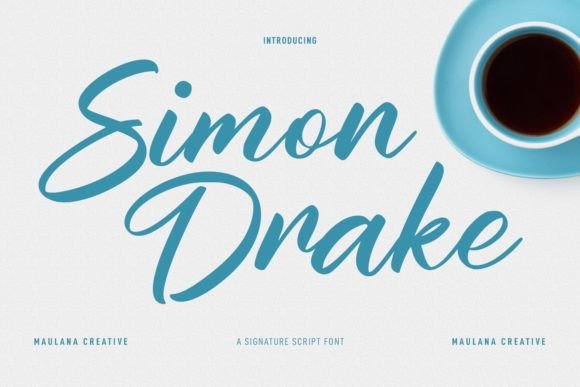
**Introducing Simon Drake: The Ultimate Font for Sports Posters**
Get ready to ignite your creativity with Simon Drake, the most dynamic and captivating script font that will elevate your sports posters to new heights!
Simon Drake is not just a font; it's an adrenaline rush for your designs. Its bold, energetic strokes evoke the passion and excitement of the game, making it the perfect choice for capturing the essence of sports. Whether you're designing posters for basketball, football, soccer, or any other exhilarating sport, Simon Drake will inject an unrivaled energy into your creations.
But Simon Drake isn't just about aesthetics; it's about functionality too. Its carefully crafted characters, featuring medium contrast strokes and a touch of ligature, ensure optimal readability even in the most demanding environments. And with a range of alternates at your disposal, you'll have endless possibilities to customize your designs and make them truly stand out.
Unleash your inner artist and let Simon Drake transform your sports posters into masterpieces. Its versatility extends beyond sports, making it an exceptional choice for social media posts, movie titles, book covers, and so much more. Whether you're creating short, impactful texts or lengthy, engaging narratives, Simon Drake will add a touch of elegance and sophistication to your work.
Imagine the thrill of seeing your sports posters come to life, with Simon Drake's energetic strokes capturing the very essence of the game. Your designs will become more than just visual representations; they'll become powerful tools for conveying the emotions, passion, and excitement of sports.
Don't settle for ordinary fonts that blend into the background. Choose Simon Drake, the font that will make your sports posters shine brighter than ever before. With its captivating strokes, endless customization options, and unwavering readability, Simon Drake is the ultimate choice for designers who demand excellence.